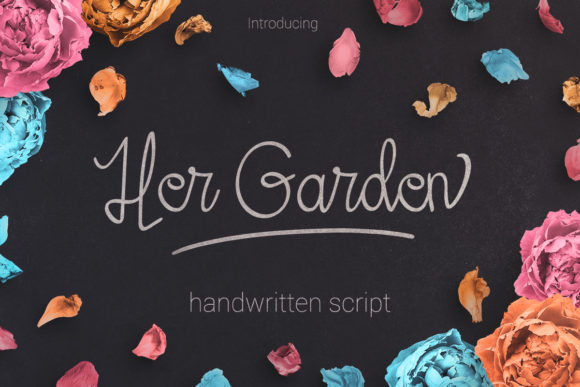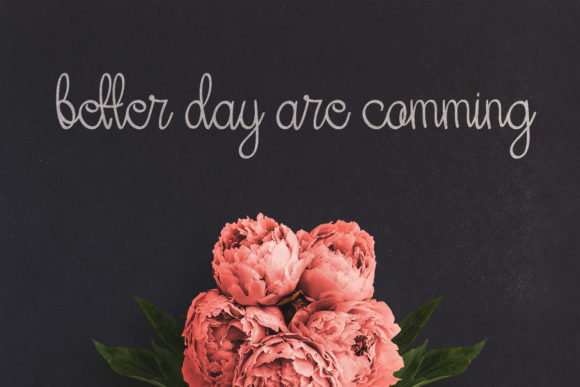
About Her Garden Font
Her Garden is a beautiful handwritten script font. It includes elegant curves and additional swashes.
It can be used for lettering, signature, branding, logotype, magazine, poster, and any other design which needs an elegant typeface.